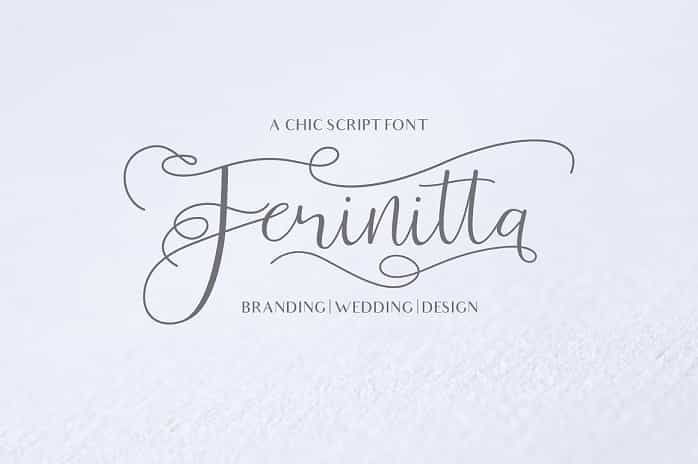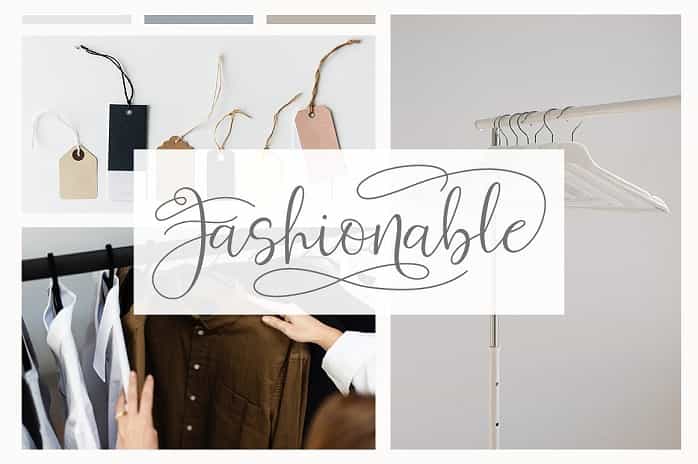
Introducing Ferinitta Script Font. It is designed and shared by Ef_Studio. Ferinitta Calligraphy Font is a modern script with the handwriting style. The fonts are so beautiful and elegant that they can be used for logo projects, branding, invitations, labels, product design, photography or anything else. this is a wonderful writing that was written with the heart for you.